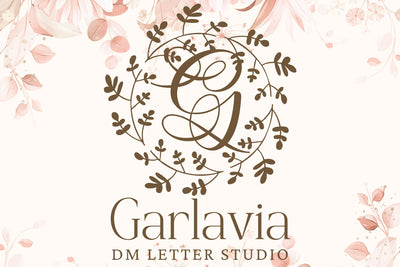
Garlavia Monogram
Garlavia Monogram – Classic Serif Monogram Font with Graceful Botanical Accents
Garlavia Monogram is a timeless serif monogram font featuring elegant uppercase initials adorned with subtle botanical flourishes. With its balanced letterforms and organic embellishments, Garlavia brings sophistication and nature-inspired charm to weddings, Cricut crafts, high-end branding, and personalized design projects.
Botanical Flourishes: Each letter is enhanced with soft, hand-drawn foliage for a refined natural feel.
Classic Serif Style: Traditional serif construction adds structure and elegance to every character.
Versatile & Sophisticated: Ideal for romantic, vintage, or minimalist design aesthetics.
Ideal For: Wedding monograms, Cricut projects, floral branding, boutique packaging, personalized stationery, and custom gift items.